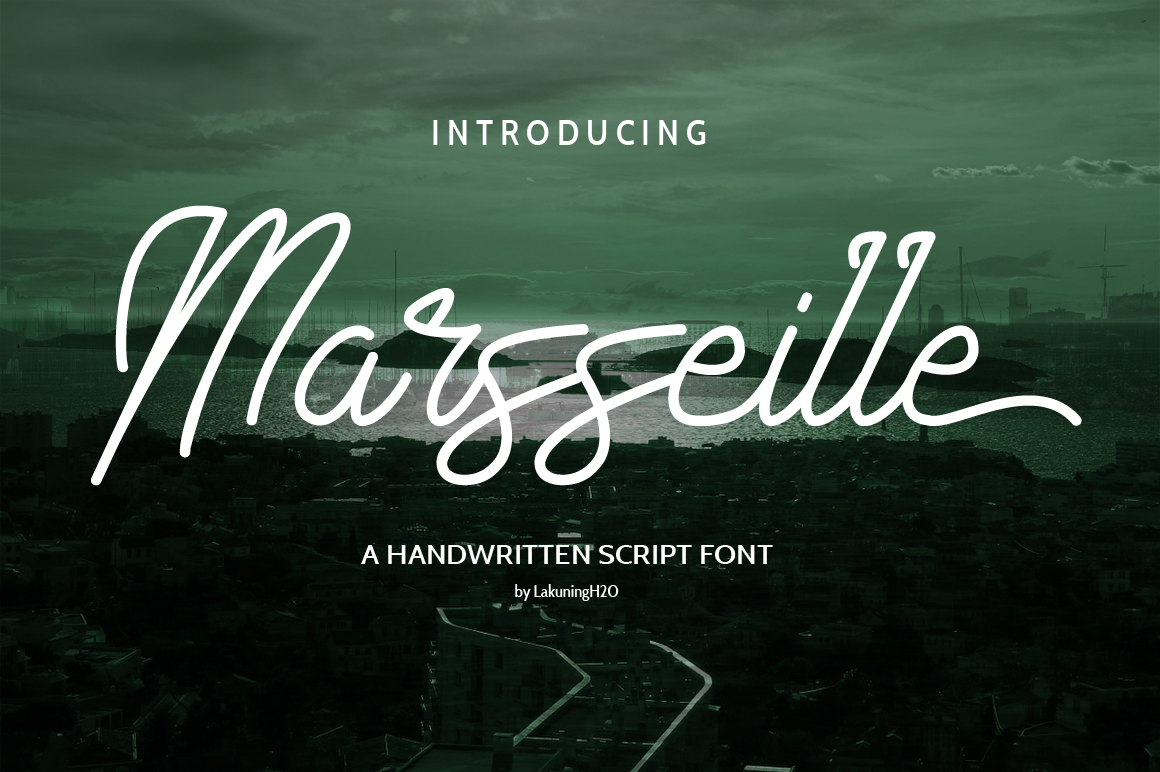
Marsseille Handwritten Script Font
Marsseille is a handwritten script font in a monoline style, suitable for a wide range of project types and display applications. This is a modern font that works well in a ton of designs.